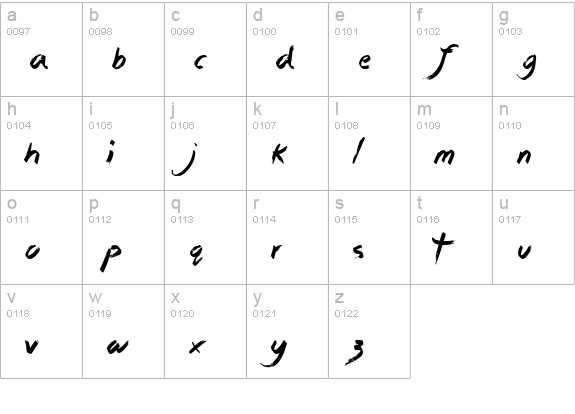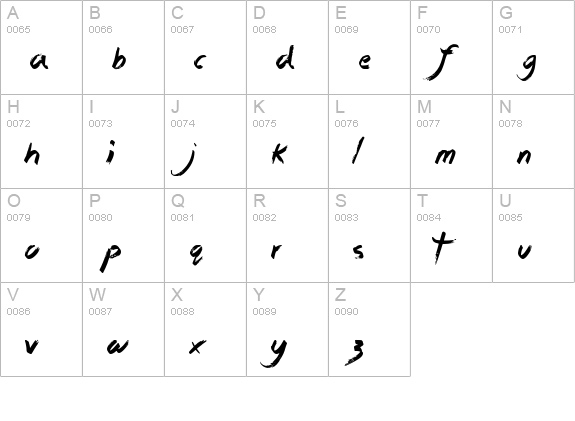
Shake it up Font Details
Shake it up font is a vibrant and energetic typeface that exudes a sense of fun and excitement. With its playful curves and bold strokes, this font is perfect for adding a touch of personality to any design project. Whether you're creating a poster, logo, or social media graphic, Shake it up font will surely make your text stand out. What makes Shake it up font even more appealing is that it is available for free download at FontsMarket.com. That's right, you can freely access and use this dynamic font without any cost. It's a fantastic opportunity to enhance your creative endeavors without breaking the bank. With Shake it up font, you can unleash your imagination and let your designs come to life. Its versatility allows you to experiment with different styles and layouts, ensuring that your message is conveyed with impact and style. Whether you want to add a playful touch to a children's book illustration or create eye-catching headlines for a party invitation, Shake it up font has got you covered. Not only is Shake it up font visually captivating, but it also offers excellent legibility, making it a practical choice for a wide range of applications. Its clear and distinct letterforms ensure that your text is easily readable, even at smaller sizes. So why wait? Download Shake it up font now, and let your creativity soar. Whether you're a professional designer or a passionate hobbyist, this font is a must-have in your toolkit. And the best part? You can freely access and enjoy Shake it up font's vibrant and lively aesthetic, thanks to FontsMarket.com. Get ready to shake things up and make a bold statement with Shake it up font.